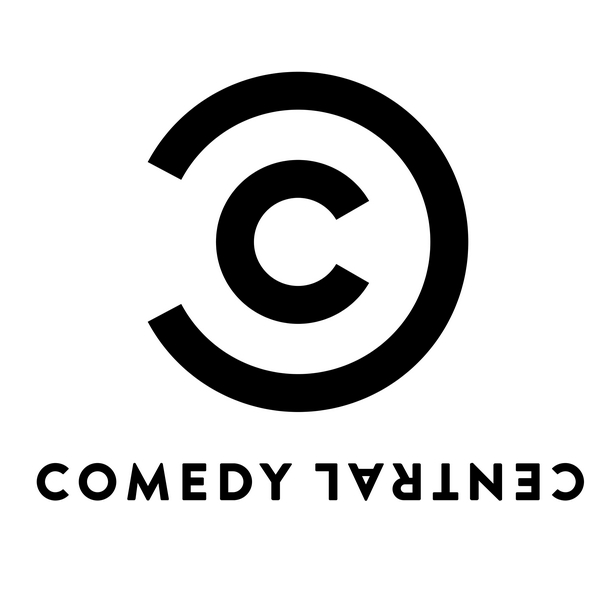
Comedy Central Font
ComedyComedy Central is a cable television network that specializes in comedy programming, including stand-up comedy, sketch comedy, and sitcoms. It was launched in 1991 and is known for shows like The Daily Show, South Park, and Broad City.
It's likely that the Comedy Central logo was created using the Brandon Grotesque Black font, designed by Hannes von Döhren.
In 2018, Comedy Central unveiled a new logo that kept the "Cc" monogram but used a custom condensed sans font that retained the low crossbars of Brandon Grotesque.